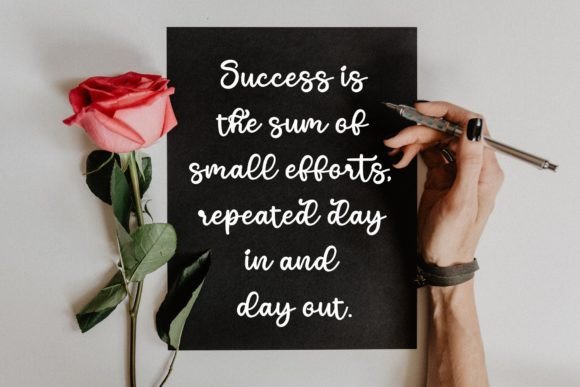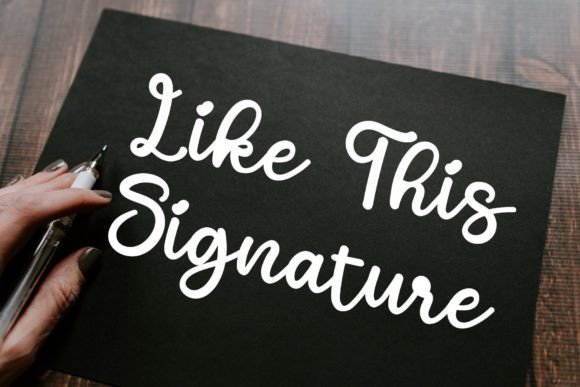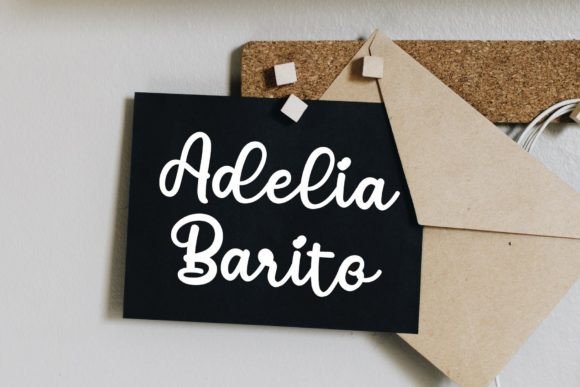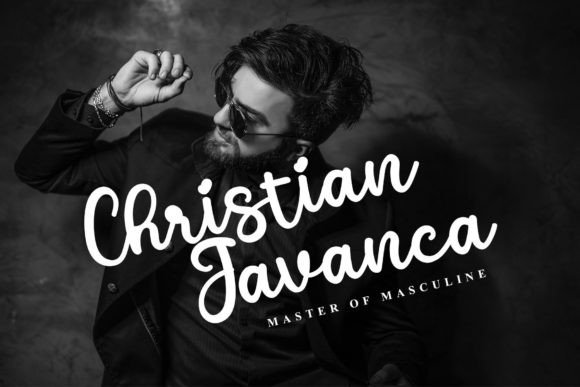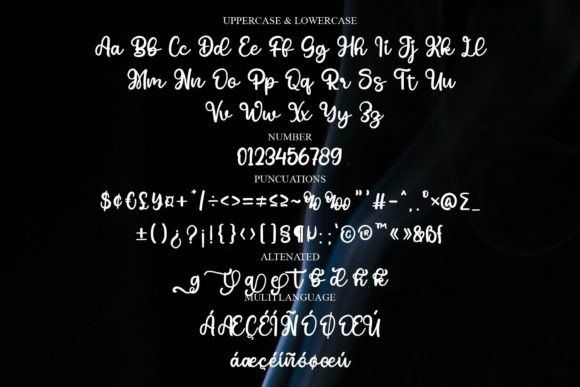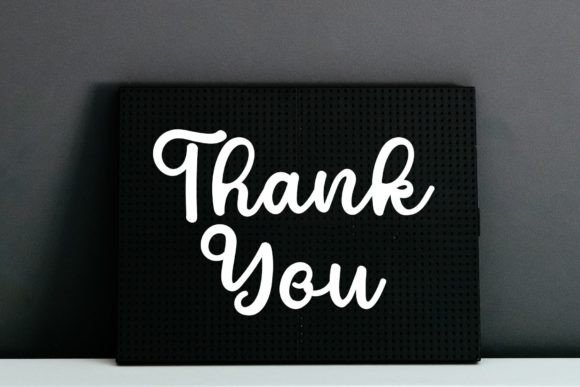
Forget Font
About Forget Font
“Forget” stands out as a refined and intelligent script font that exudes sophistication and elegance. Its versatile style invites admiration, making it an excellent choice for crafting spectacular designs that leave a lasting impression.
The font’s fine and smart design reflects a meticulous attention to detail, capturing a sense of timeless beauty. Forget seamlessly combines classic charm with a contemporary flair, making it suitable for a wide range of creative projects. Whether used for formal invitations, brand identities, or promotional materials, this font brings an element of grace and sophistication to every application.
One of Forget’s standout features is its incredible versatility. Its adaptive nature allows it to complement various design aesthetics, ensuring that it can effortlessly elevate the visual appeal of any project. From luxurious wedding invitations to sleek business collateral, Forget adapts to the tone and purpose of the design, enhancing its overall impact.
An additional layer of convenience is added with the font being PUA encoded. This encoding feature grants easy access to a plethora of amazing glyphs and ligatures, providing designers with a rich toolkit to enhance their creativity. Whether you’re aiming for a customized look or seeking to add unique flourishes to your design, Forget’s PUA encoding empowers you to explore and utilize its full range of artistic elements.
For those captivated by the artistry of typography, Forget offers a delightful experience. Its ligatures, meticulously crafted glyphs, and distinctive characters contribute to a visual language that is both refined and expressive. Designers can use these elements to create compositions that stand out, leaving a memorable and sophisticated impression on the audience.
In conclusion, Forget is not just a font; it’s a design companion that brings finesse and intelligence to your creative endeavors. Its fine and smart script, coupled with PUA encoding, opens up a world of possibilities for designers looking to make a statement. Fall in love with Forget as it seamlessly weaves sophistication into your designs, making every project a testament to the artistry of typography.